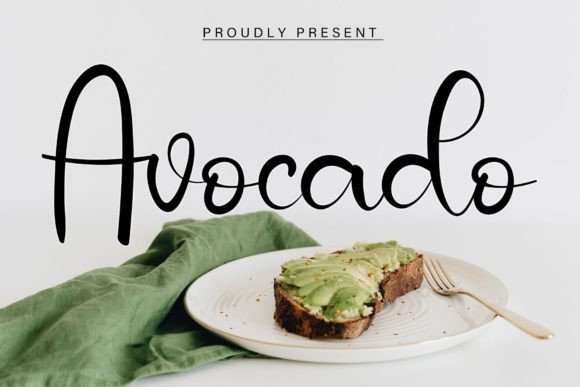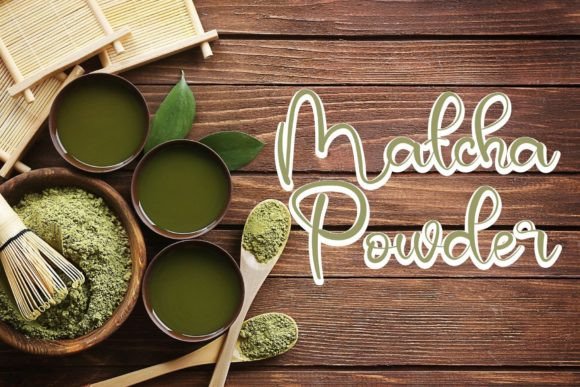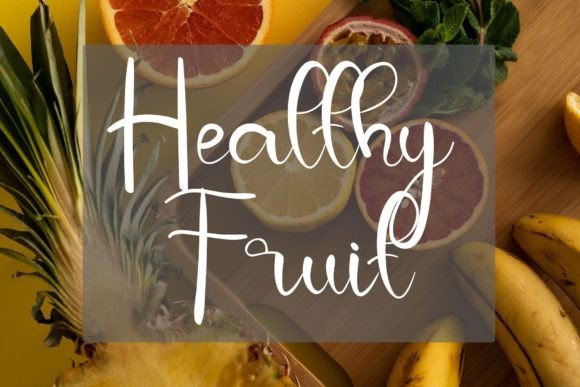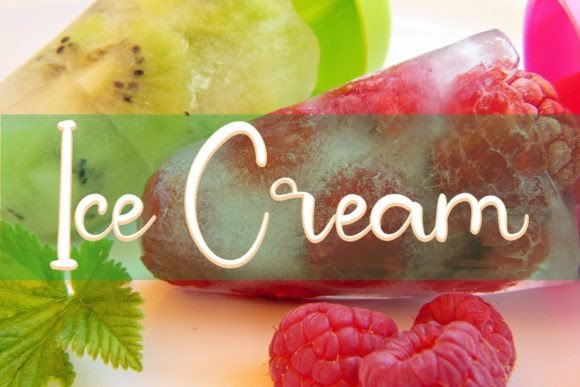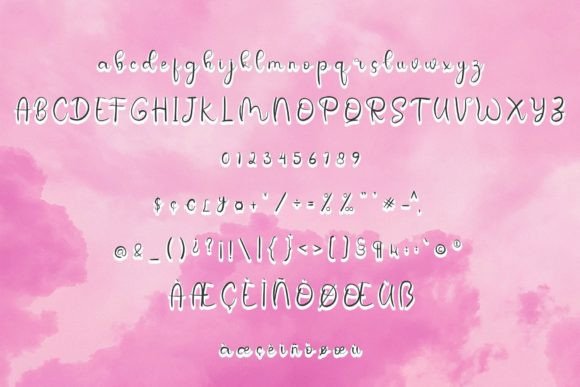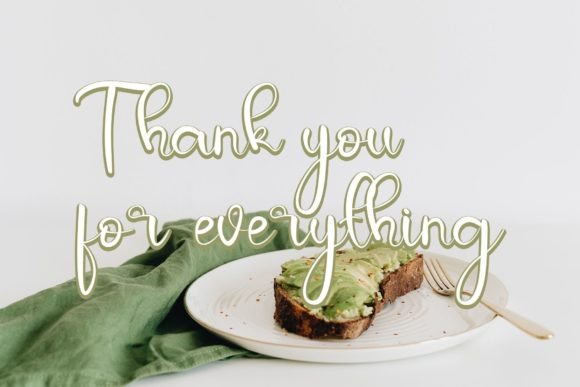
Avocado Font
About Avocado Font
Introducing Avocado, a delightful and friendly handwritten font that adds a touch of fun to any design. With its playful style, Avocado has the ability to transform your design ideas into true standouts. Let the unique charm of Avocado inspire your creativity and bring a lovely touch to your designs.
This font is not just a collection of letters; it’s a tool that infuses a sense of playfulness and friendliness into your projects. Whether you’re working on posters, social media graphics, invitations, or any other creative endeavor, Avocado brings a lighthearted and inviting vibe.
Embrace the distinctive charm of Avocado as you explore its creative possibilities. Let it be the catalyst that turns your design concepts into visually appealing and lovable creations. Whether used for headlines, logos, or any other design element, Avocado ensures that your projects exude a warmth and charm that captivates.
Incorporate Avocado into your design toolbox and witness how it can elevate your ideas into something extraordinary. Let the fun and friendly vibes of this handwritten font bring a new level of joy and approachability to your creative projects, making them not only visually appealing but also filled with delightful charm.